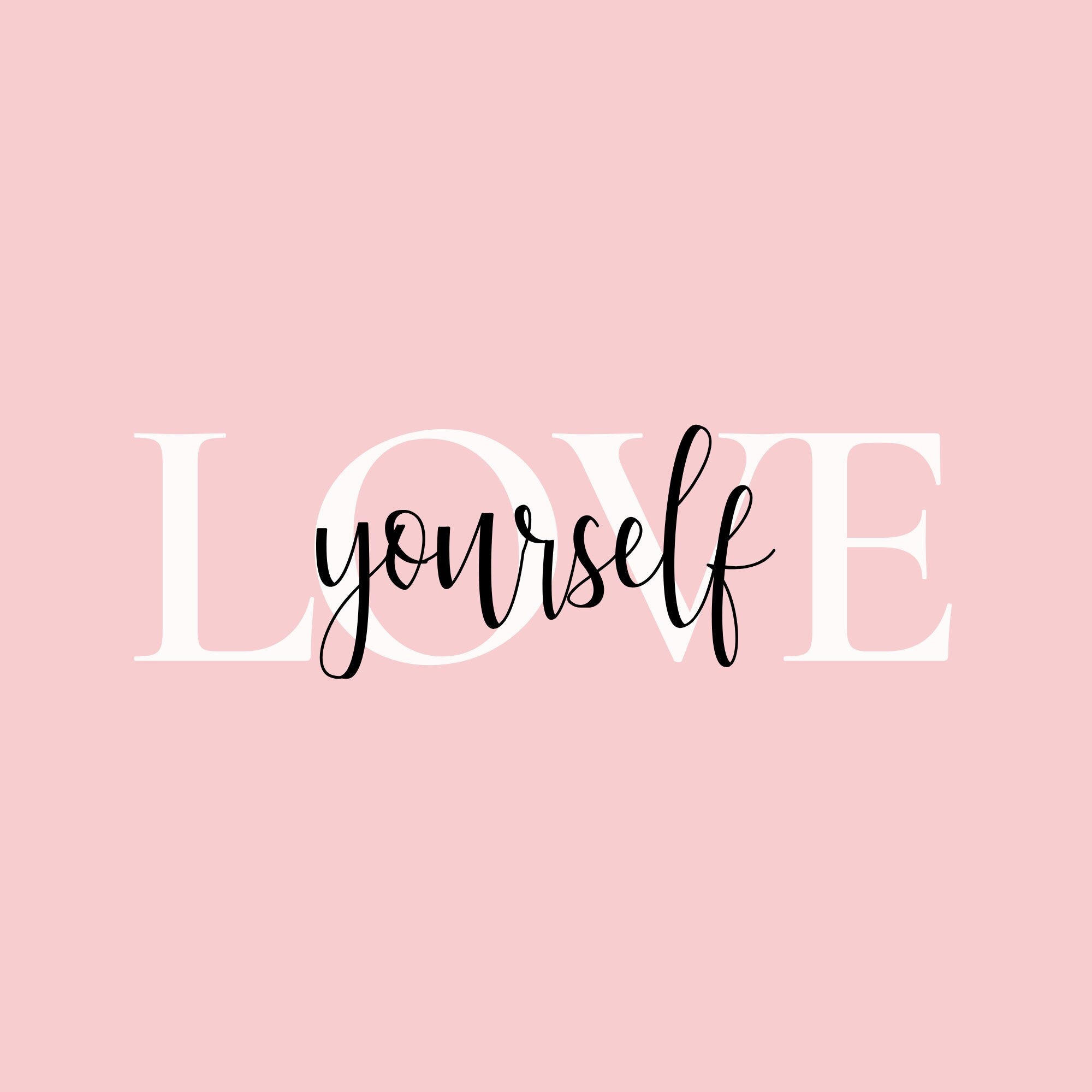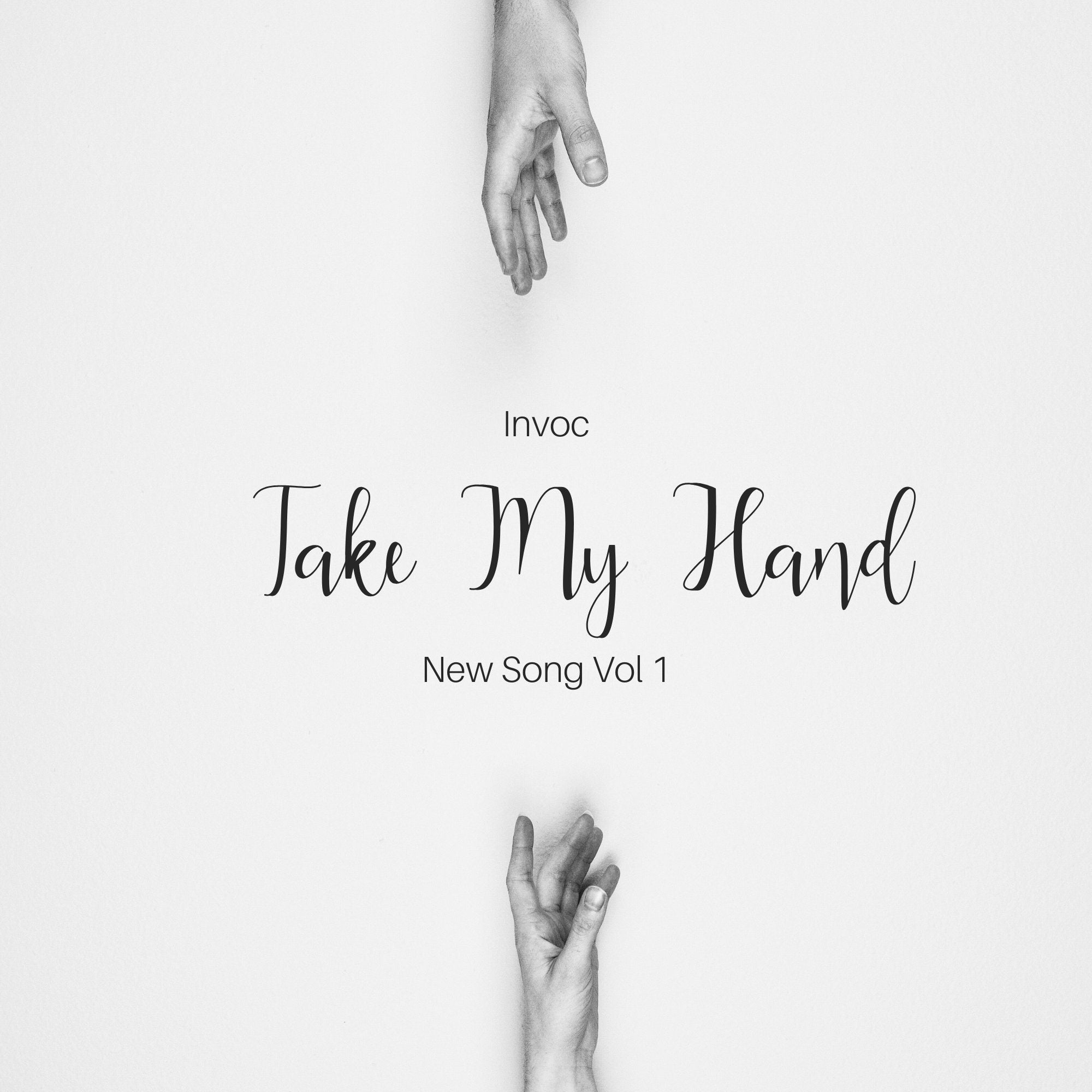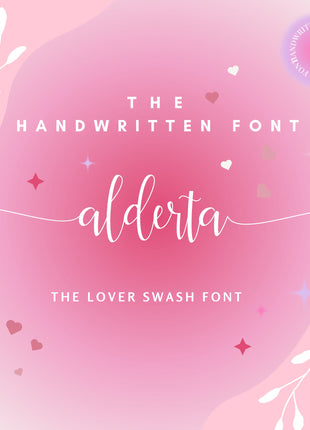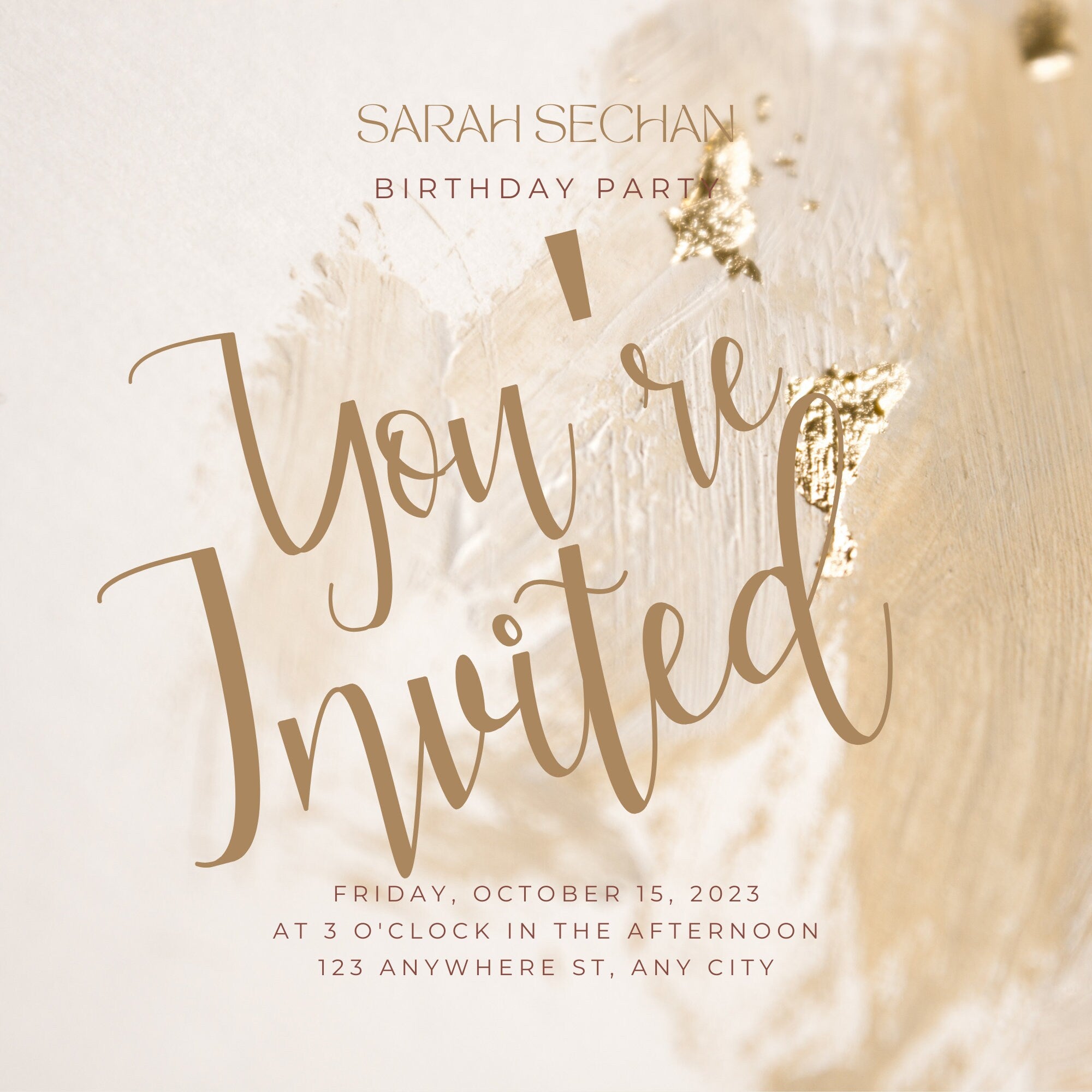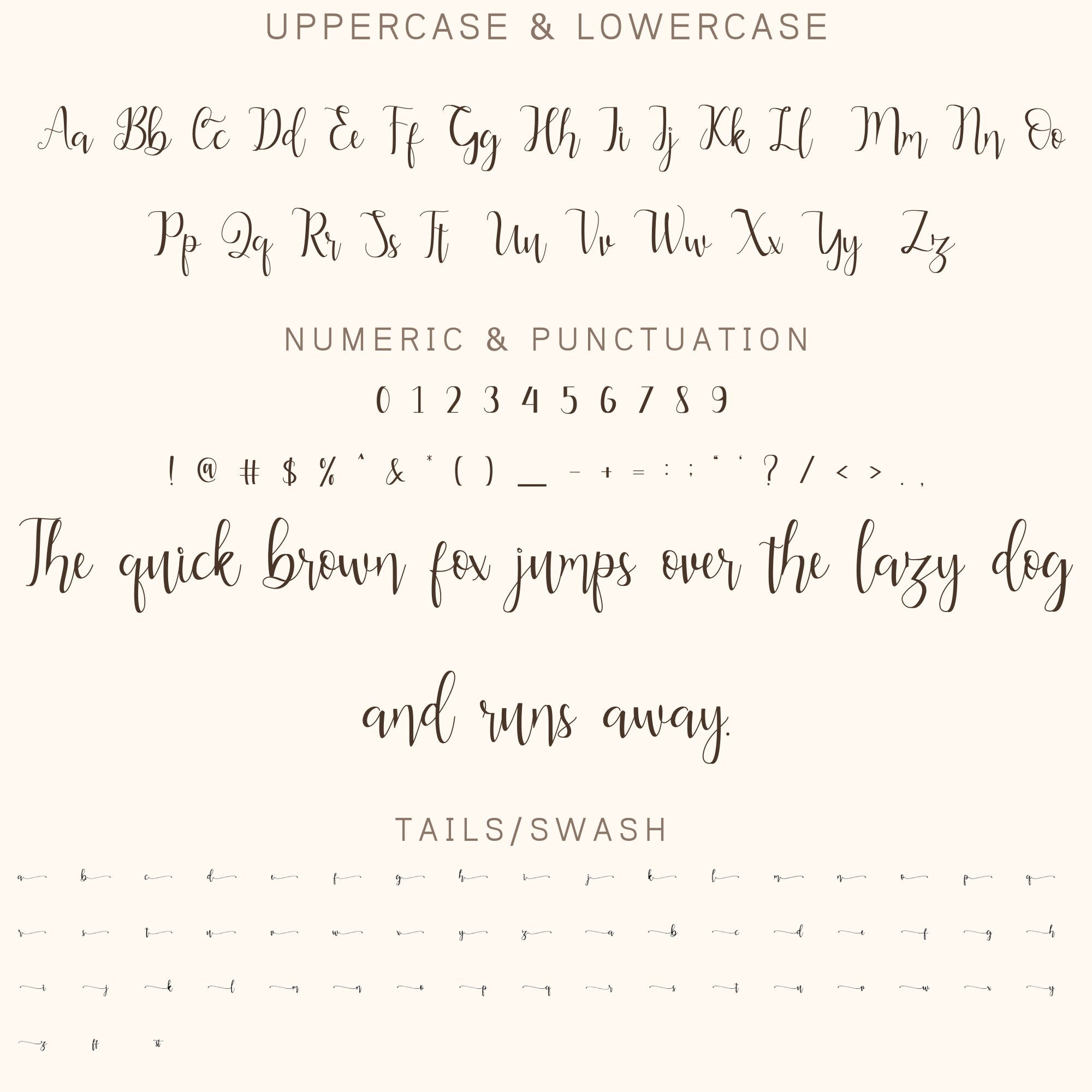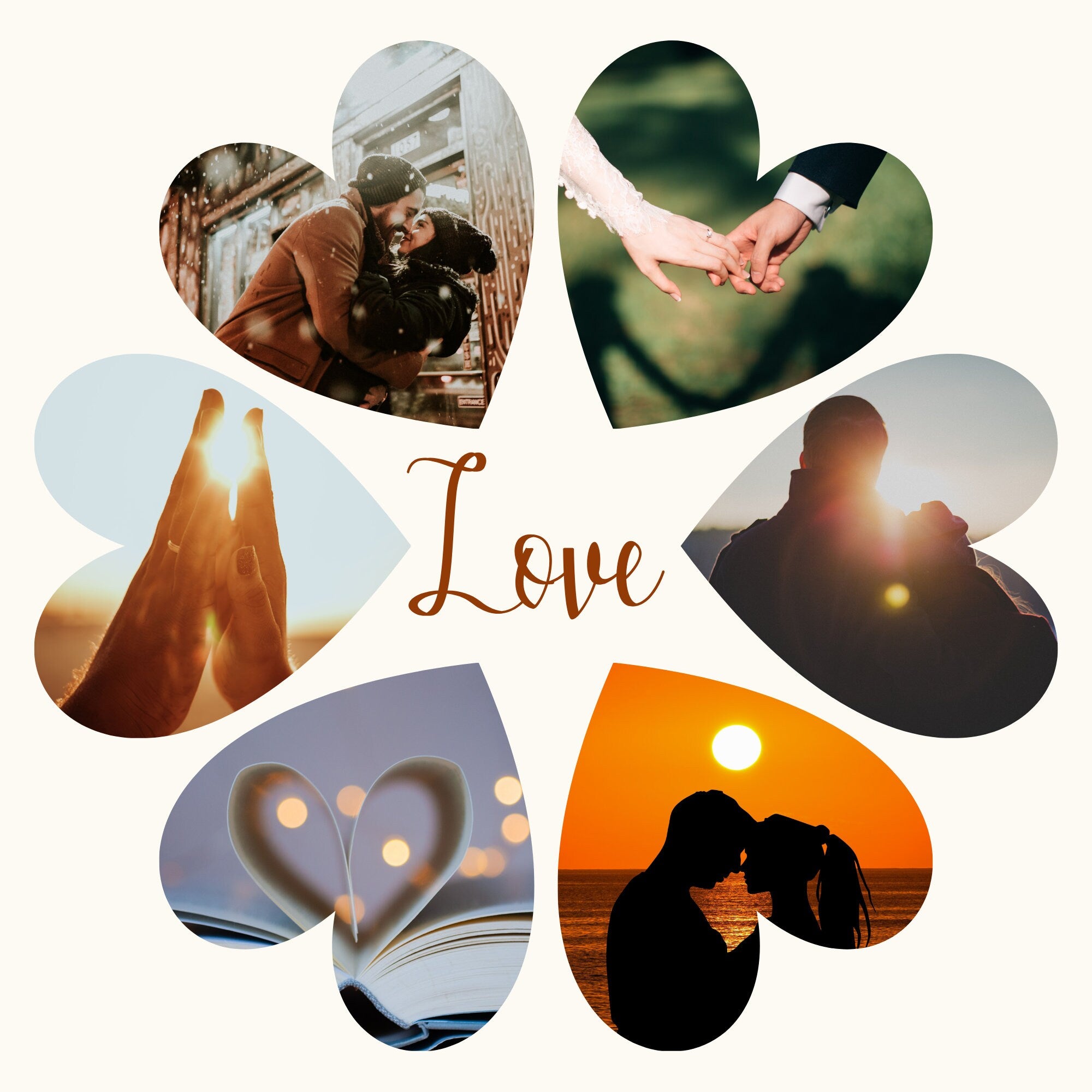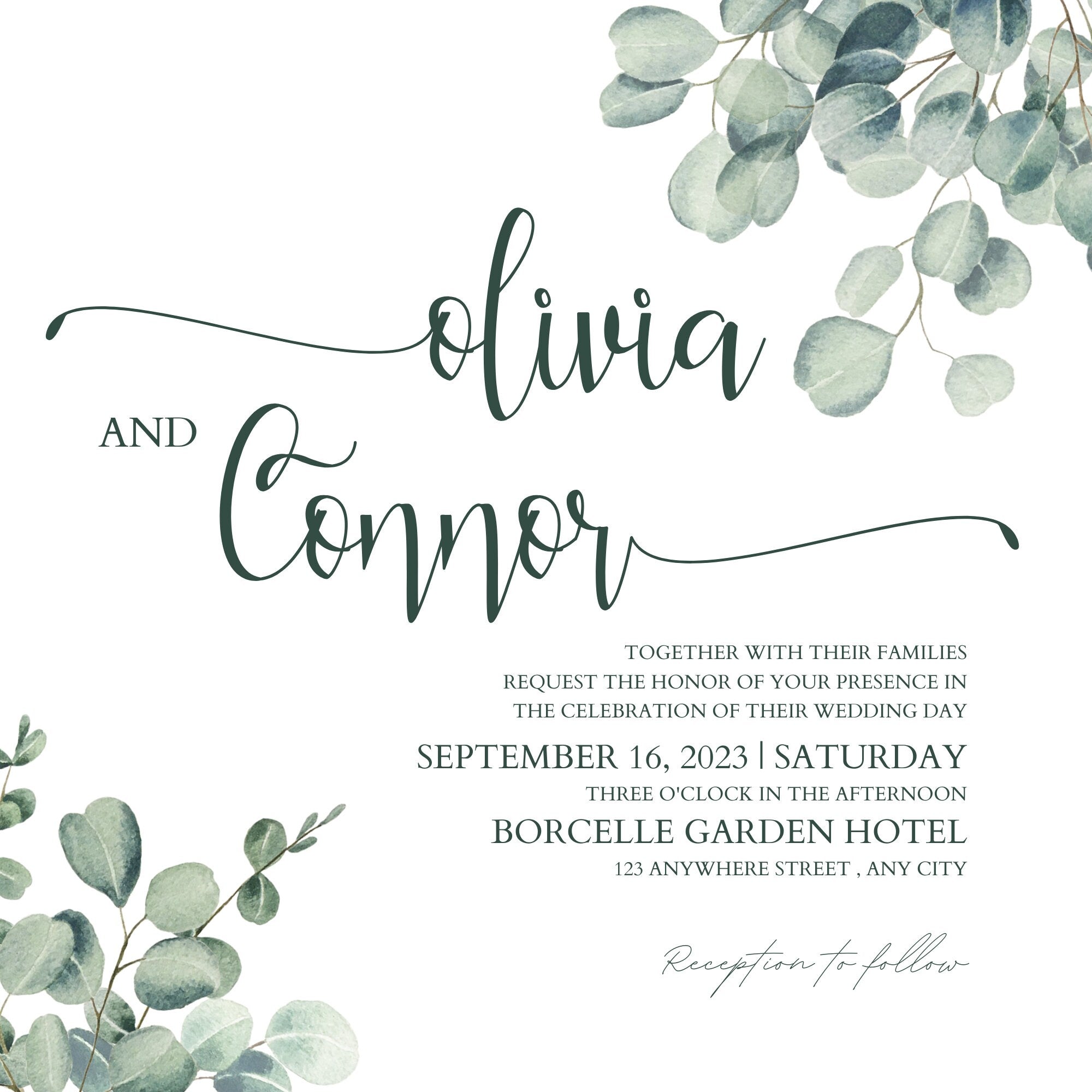
Alderta Handwritten Signature Script Font with Elegant Swash Tails
Alderta is a flowing handwritten signature script that turns plain words into polished signatures with playful swash tails. The single-weight OTF file delivers smooth kerning and natural stroke contrast for a professional hand-lettered look. OpenType features include contextual alternates, ligatures and stylistic swashes so every word feels custom. Works seamlessly with Cricut, Silhouette, Procreate, Photoshop and most design apps for instant creative flexibility. Commercial license permits unlimited projects and unlimited sales while keeping the font file secure from redistribution. The purchase includes the OTF font and a clear step-by-step installation guide inside an instant ZIP download. Compatibility notes and quick troubleshooting tips are included so installation is fast and painless. Use Alderta for logos, signatures, branding, invitations and cut files where elegant, modern cursive is needed. This digital font streamlines creative work and raises plain designs into memorable hand-lettered art.
Design style Handwritten signature script with swash tails
OpenType features Contextual alternates, ligatures, stylistic swashes